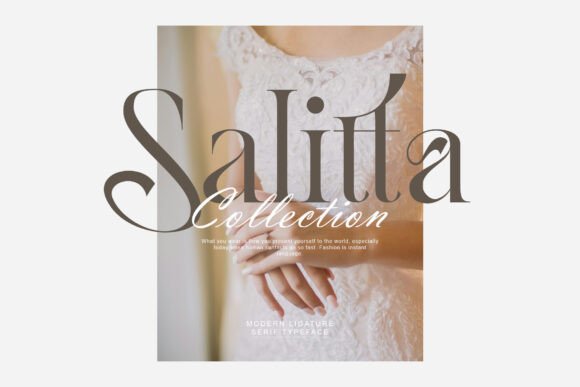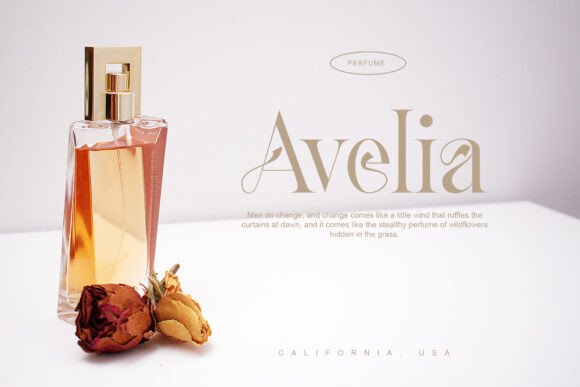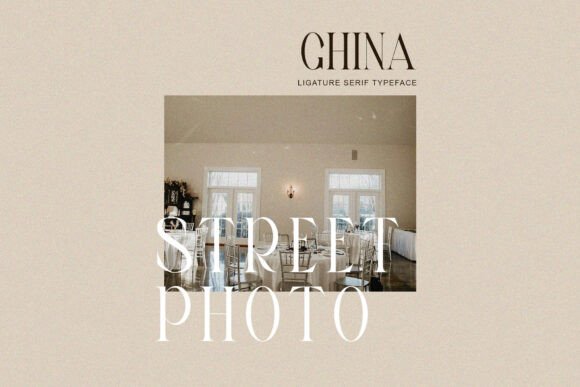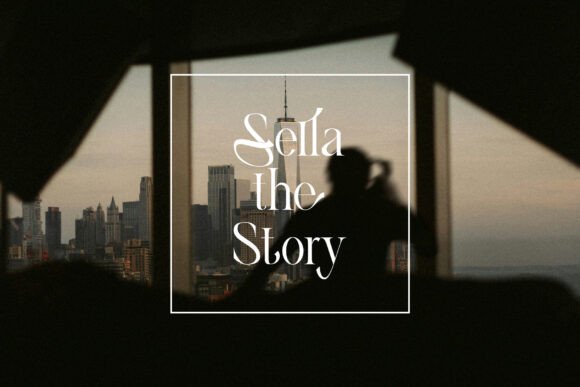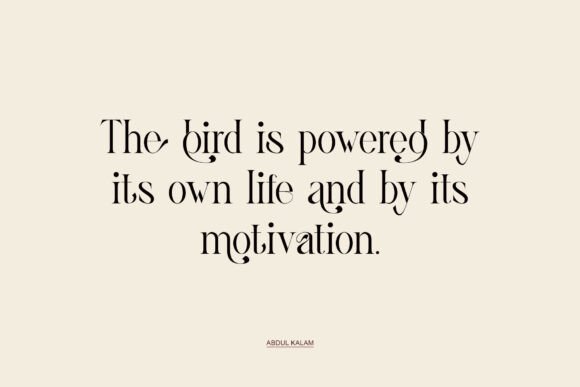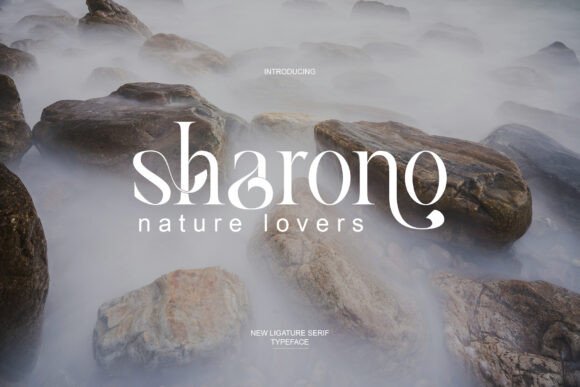
Introduction to Ghina Font
Ghina is an elegant and classy serif typeface – This font is both modern and nostalgic and works great for logos, magazine, social media.
Already matched up and ready to be used together for your next design For those of you who are needing a touch of elegant, stylish, classy, chic and modernity for your designs, this font was created for you.